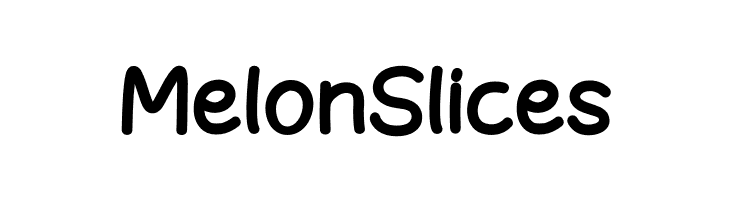
( Darrell Flood )
A bold, geometric sans-serif font with a modern and clean aesthetic.
A dynamic, italic, and condensed font with bold, calligraphic strokes.
( Jack Thompson - behance.net/tompanova )
A bold, geometric font with high contrast and modern design.
A bold, playful font with thick, rounded letters and a 3D effect.
A playful, rounded handwritten font with smooth curves and a friendly appearance.
A bold, condensed italic font with sharp, angular edges and high contrast.
( Fatia Herman )
A playful, bold, and hand-drawn style font with rounded edges.
( Vladimir Nikolic - www.coroflot.com/vladimirnikolic )
A bold, italic font with a dynamic and modern style.
A playful, handwritten font with rounded, organic characters and a friendly appearance.
A modern, elongated font with a sleek and artistic design.
An elegant, flowing script font with a refined, cursive style.
A bold, playful font with a chunky, irregular style and a slightly distressed appearance.
A playful, festive font with a hand-drawn, dotted texture ideal for holiday themes.
( Lukas Schiltknecht - www.getthepro.ch )
A classic Blackletter font with intricate, ornate letterforms and a Gothic aesthetic.
A bold, condensed, and italic font with a modern, dynamic style.
A decorative, cartoon-style emoticon icon set with bold outlines.
( hechicero - www.ff-omeganebula.com )
A decorative and intricate font with fantasy-themed glyphs and ornamental design.
( Fonts by www.lifewithouttaffy.com )
A bold, pixelated font with a retro digital aesthetic.
A bold, angular font with a hand-carved, ancient script style.
A playful and casual handwritten font with fluid strokes.
A classic serif font with high contrast and elegant letterforms.
A lively and expressive script font with fluid, dynamic strokes.
( Qbotype Fonts - Carlos Daniel Matteoli - www.facebook.com/QbotypeFonts/ )
A bold, geometric font with a futuristic and minimalistic design.
( weknow - Wino S Kadir - www.creativefabrica.com/designer/weknow/ )
A bold, geometric, and italic font with a modern flair.
A modern, geometric font with tall, narrow characters and uniform stroke width.
( Fonts by Moove Studio )
A lively script font with fluid, cursive strokes and connected letters.
A playful, hand-drawn font with wavy lines and a casual feel.
A bold, angular font with a geometric and impactful design.
A modern, italic font with a bold, geometric style and a sense of movement.
A sleek, modern script font with thin, elegant strokes.
A bold, geometric font with a futuristic and edgy design.
A bold, graffiti-inspired font with dynamic and playful characters.
A modern, clean sans-serif font with geometric letterforms.